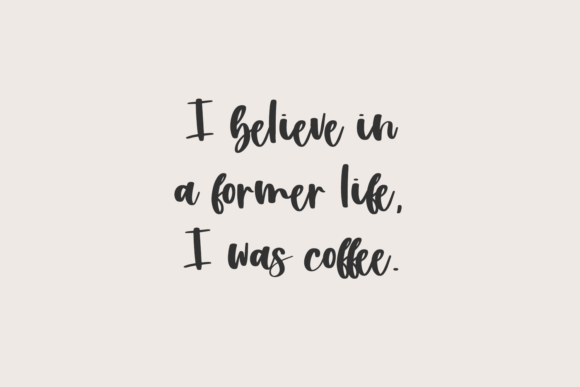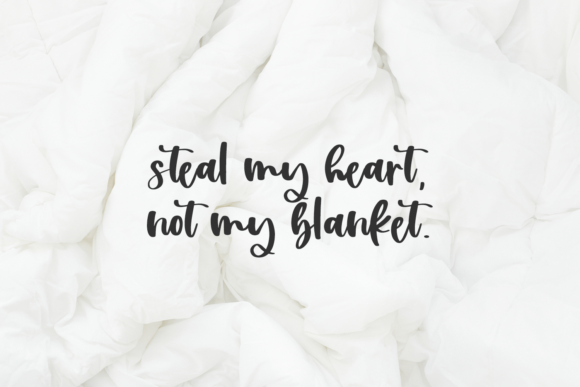
Inkerly Script Font
db-ku.com - Script & Handwritten -- Inkerly Script feels equally charming and elegant. It looks stunning on wedding invitations, thank you cards, quotes, greeting cards, logos, business cards and every other design which needs a handwritten touch.